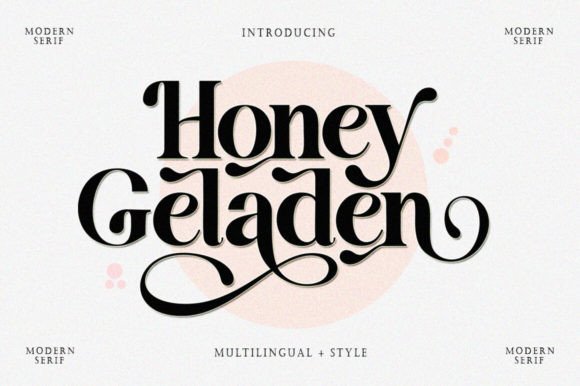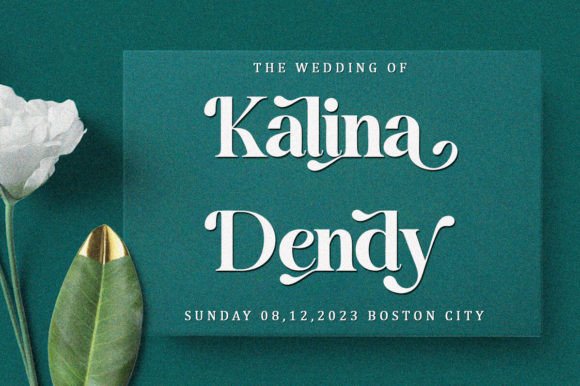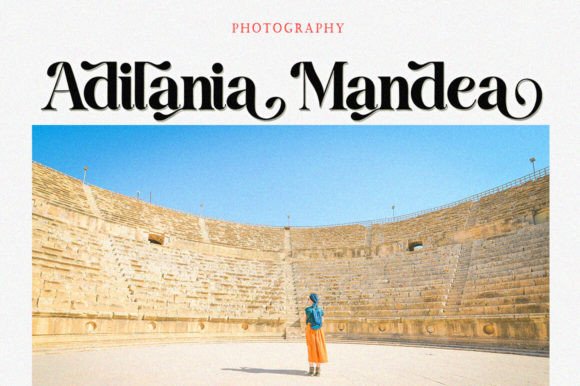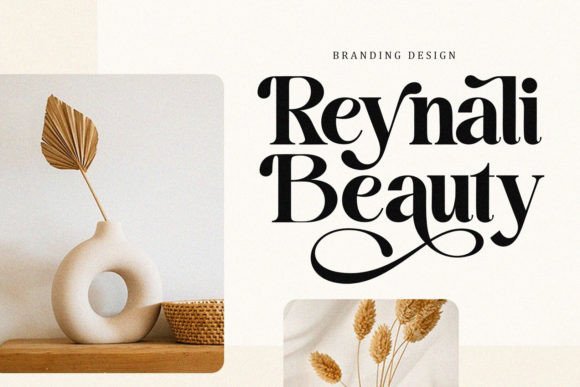
Honey Geladen Font: Elegant Serif for Wedding & Logo Design
About the Honey Geladen Font
Make a bold statement with Honey Geladen Font, a powerful and memorable font. Honey Geladen is a beautiful, versatile serif font. It is characterized by a modern and luxurious style in a classic form, but also a friendly and playful style in bold. Honey Geladen has glyphs to give crafters more options in designing. This modern style will make a design appear more classy, elegant, unique and edgy.
Honey Geladen excels in headlines, logos, and short-form text for branding projects, packaging design, and posters. Its elegant yet playful nature makes it ideal for products targeting a sophisticated yet approachable audience. Avoid using it for large blocks of body text or UI elements where high readability is paramount; its decorative elements can hinder legibility in extended use.
Pairing it with a clean sans-serif like Montserrat for body copy creates a balanced contrast, while a geometric sans-serif such as Futura adds a modern edge. For a more luxurious feel, consider pairing it with a delicate script font.
The font’s overall personality is sophisticated yet approachable; bold yet friendly. This duality makes it versatile but requires mindful application to ensure visual harmony within the design.